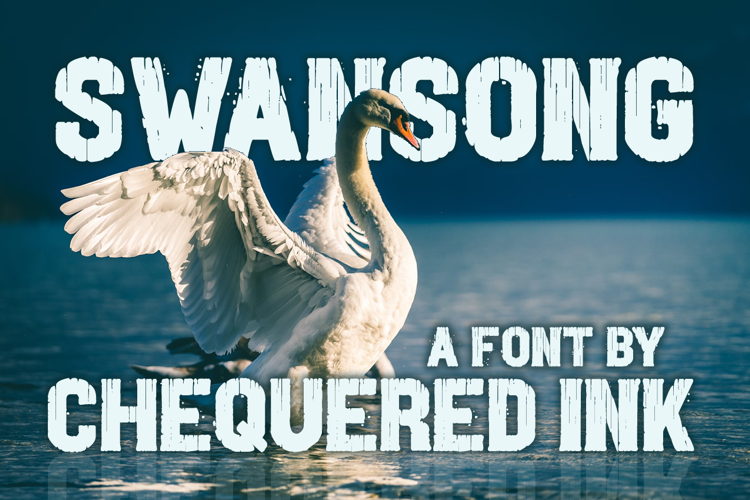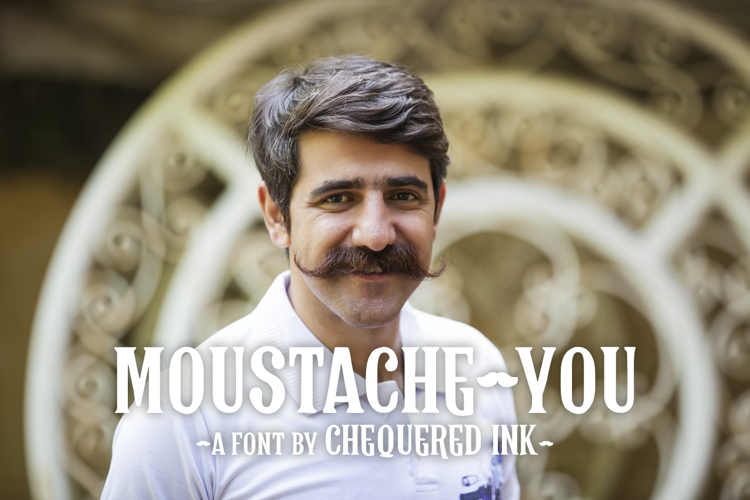
Swansong
Swansong is a grungey, eroded, and almost icy feeling font - it may be perfect for any upcoming wintry projects you have.
Manic Germanic
Manic Germanic is an old-school gothic blackletter font. It could bring a certain level of class to your designs, whether you're making a logo for your local newspaper, or forging your very own ancient documents. (don't do that). (unless you want to).
Half Myself
Half Myself is a chunky, stencil-like font. The thick strokes, solid shapes and partially-cut lines give it a distinctly metallic feel which would be well suited to a sci-fi game or perhaps, as shown in the thumbnail, PUMPING IRON. There are two styles included with this font, straight and slightly slanted.
Moustache You
Finally, Moustache You. The name and the thumbnail playfully lead you to perhaps the best use of this vintage looking font: the logo for a barbershop, or maybe a pub. You can just imagine this font on one of those faux-chalkboard signs right?